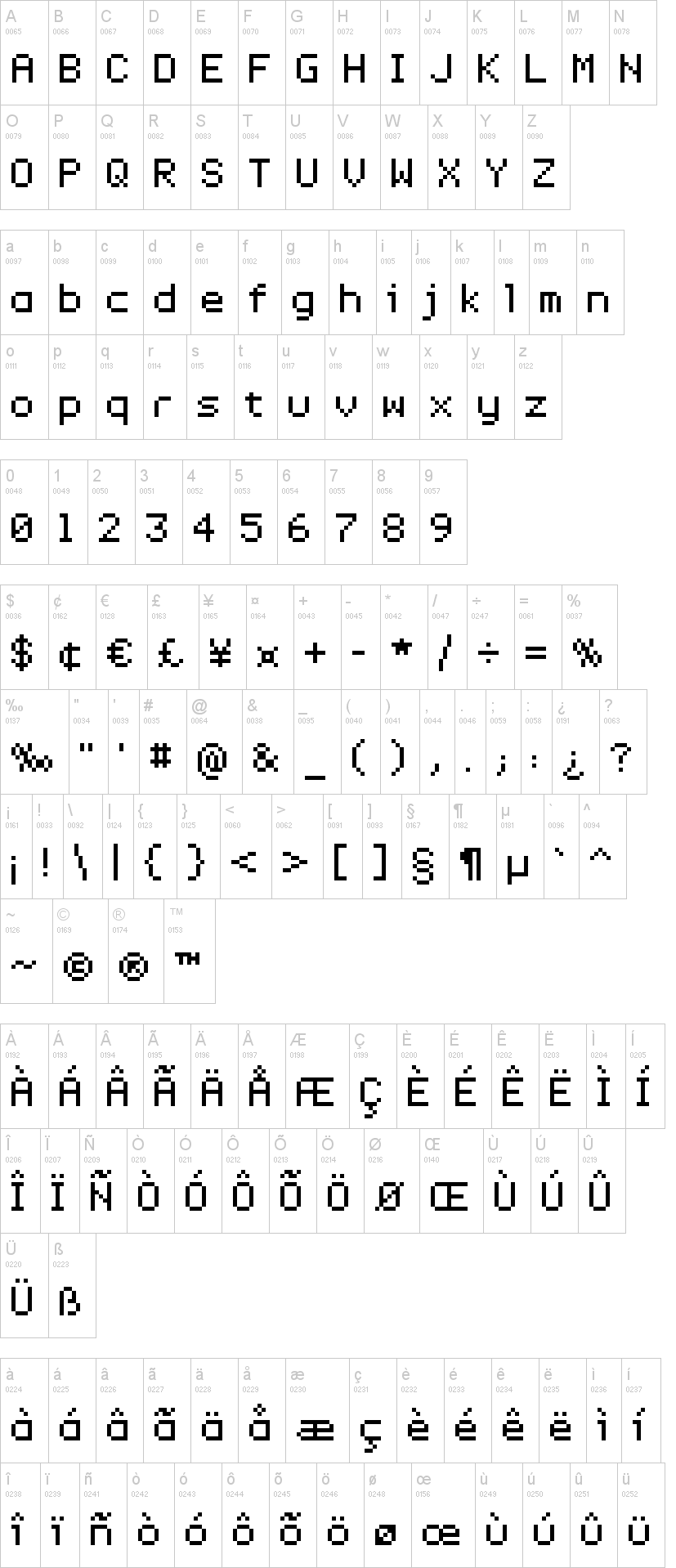
EnterCommand-Italic.ttfEnterCommand-Bold.ttfNote of the authorEnter Command by jeti: A small, square sans serif callback to the early days of graphic adventures in multiple styles.
(This font is partially based on the font from the 1980 On-line Systems game, Hi-Res Adventure #1: Mystery House.)